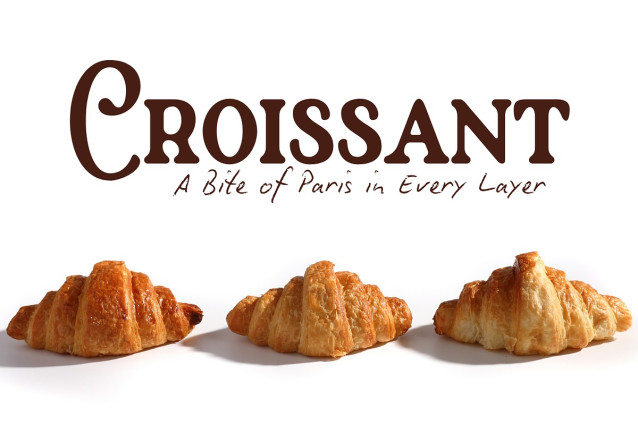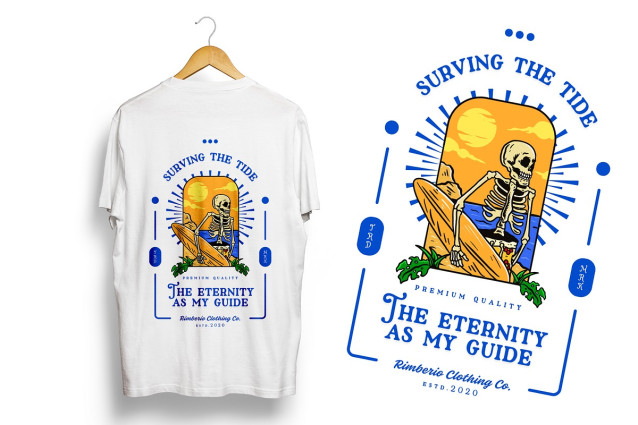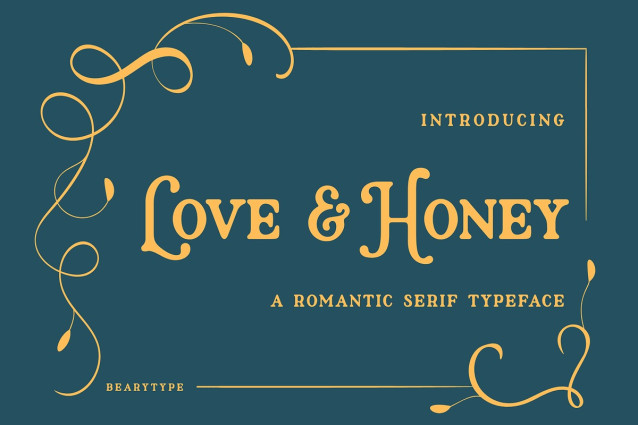
Love And Honey Font
Love And Honey | Elegant Serif Font is an elegant serif font designed for weddings, logos, and luxury branding. Its soft details and romantic vibes make it a perfect choice for creating timeless designs with a modern twist.